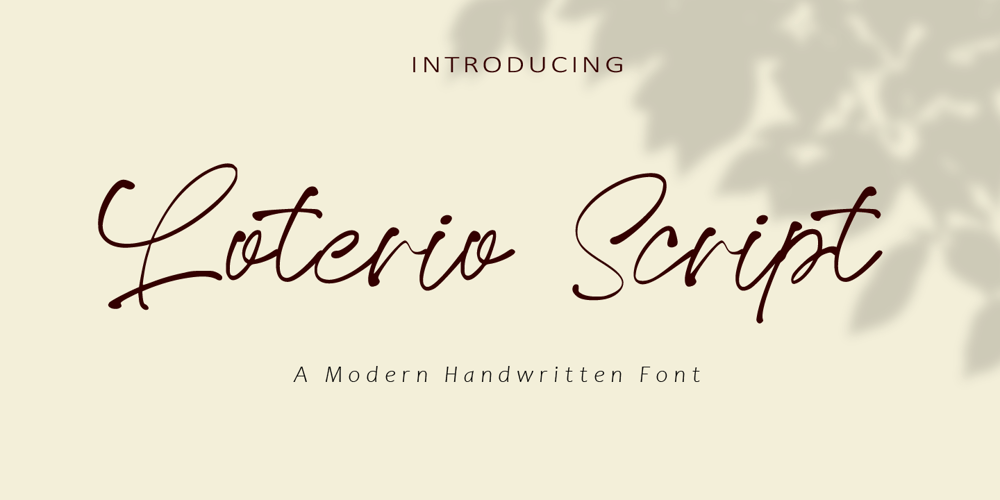
Loterio Script Font Family was designed by Amin Maryono and published by Aminmario Studio. Loterio Script contains 2 styles and family package options. Loterio Script is a modern and elegant handwritten font with varying thickness and a charming gesture.This font is great for your creative projects such as watermark on photography, and perfect for logos & branding, photography, invitation, watermark, advertisements, product designs, stationery, wedding designs,label, product packaging, social media, movie titles, books titles, a short text even a long text letter and good for your secondary text font with sans or serif. And also for special events or anything that need handwritting taste.Thanks for checking out this font. I hope you enjoy it!